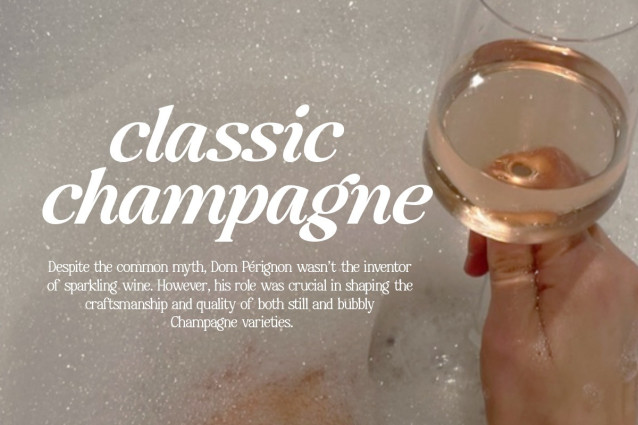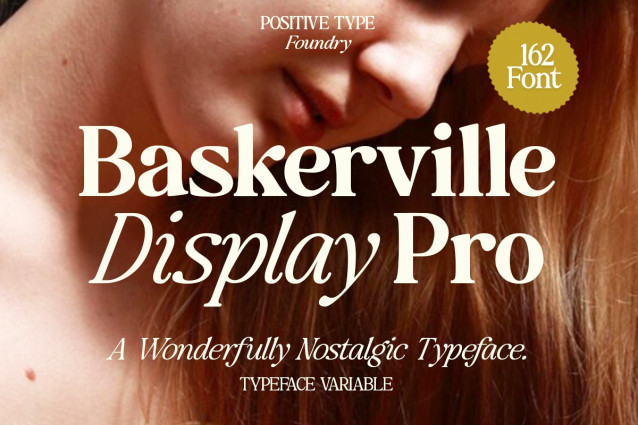
Baskerville Display Pro Font
Baskerville Display Pro Font, a beautifully crafted serif typeface that captures the nostalgic charm of classic editorial fonts — now reimagined as a modern, high-performance display family. Designed for designers who crave both character and control, this typeface is a love letter to timeless typography, wrapped in a fresh and flexible digital form.
Whether you’re building a fashion campaign, curating a luxury brand, or crafting a statement quote, this typeface evokes sophistication with a distinct personality.